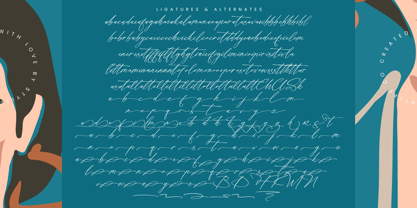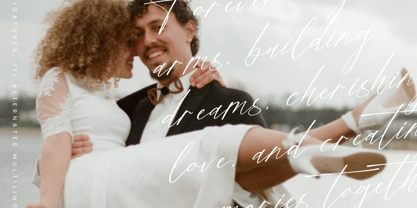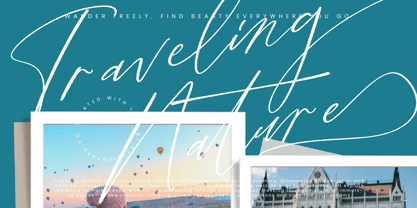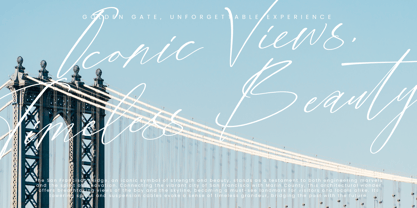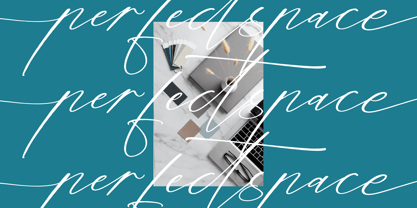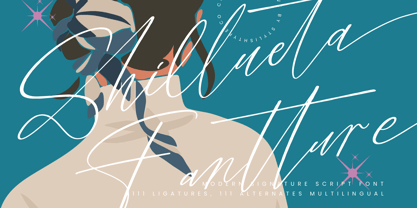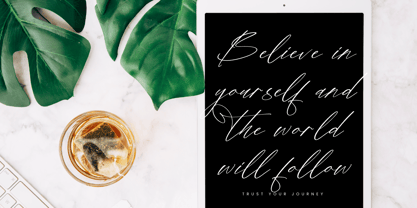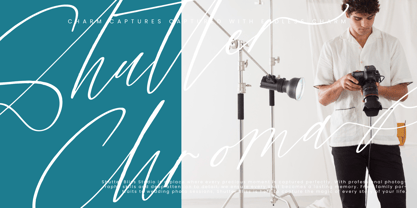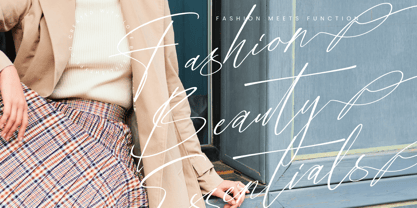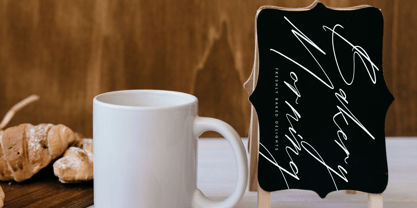
Shillueta Fantture
by Stylishtype Studio
The Shillueta Fantture Font Family was designed by Heru Utama Putra and published by Stylishtype Studio. Shillueta Fantture contains 2 styles and family package options. More about this family
Shillueta Fantture - Modern Signature Script Font , from Stylishtype, Suitable for any projects such as: logos, branding projects, homeware designs, product packaging, mugs, quotes, posters, shopping bags, t-shirts, book covers, name card, invitation cards, greeting cards, label, photography, watermark, special events, and all your other luxury and beautiful projects that need a Luxury Script taste.